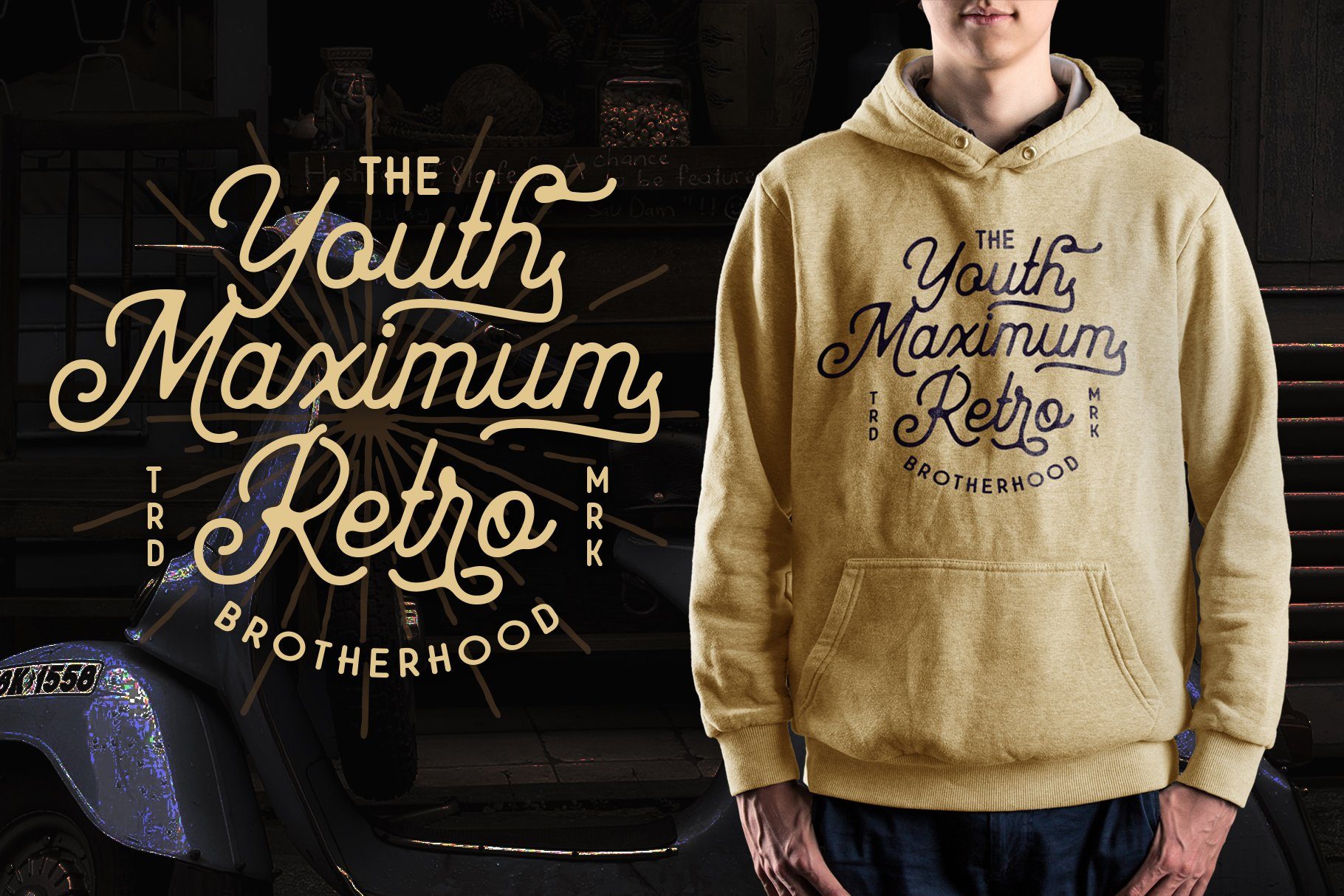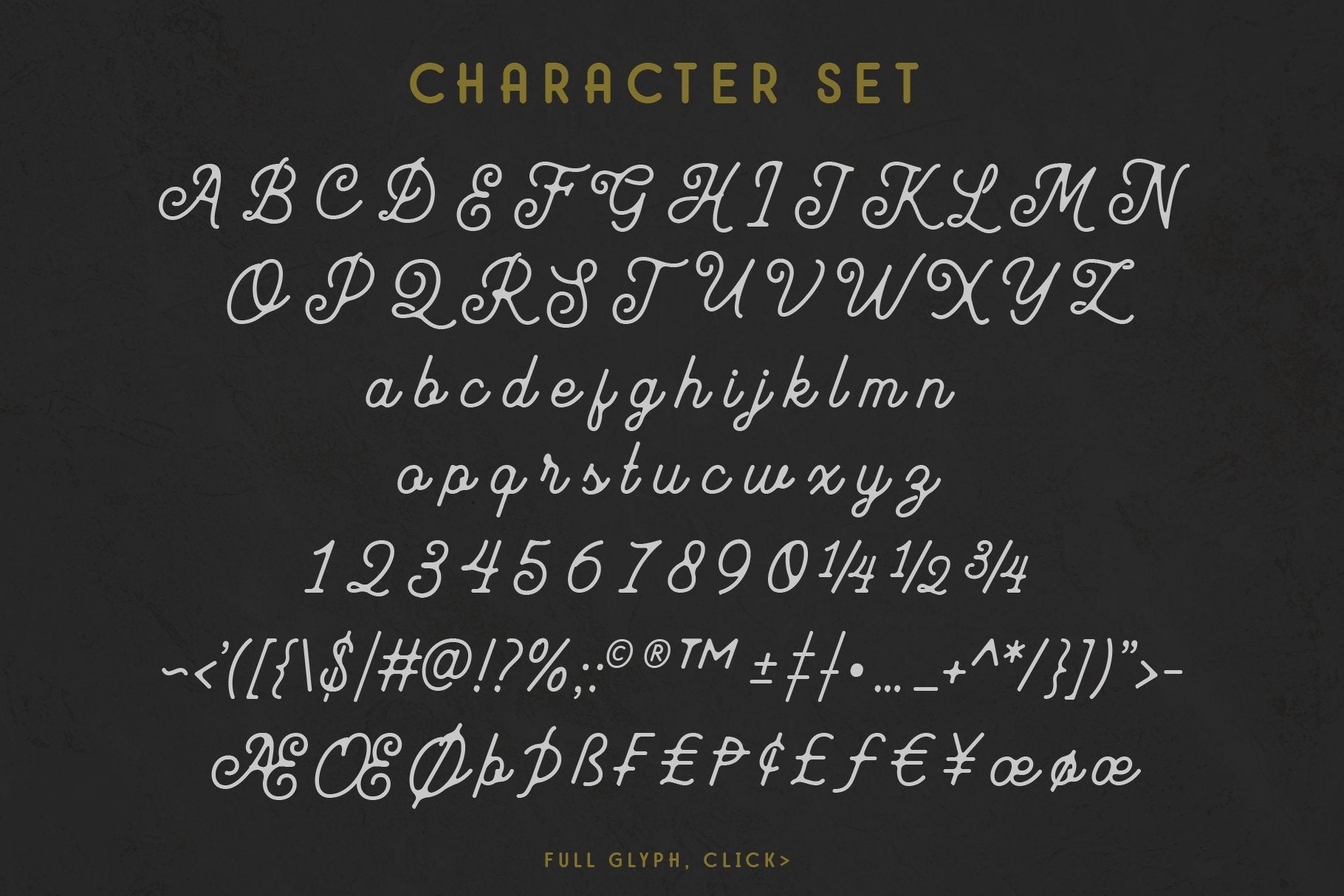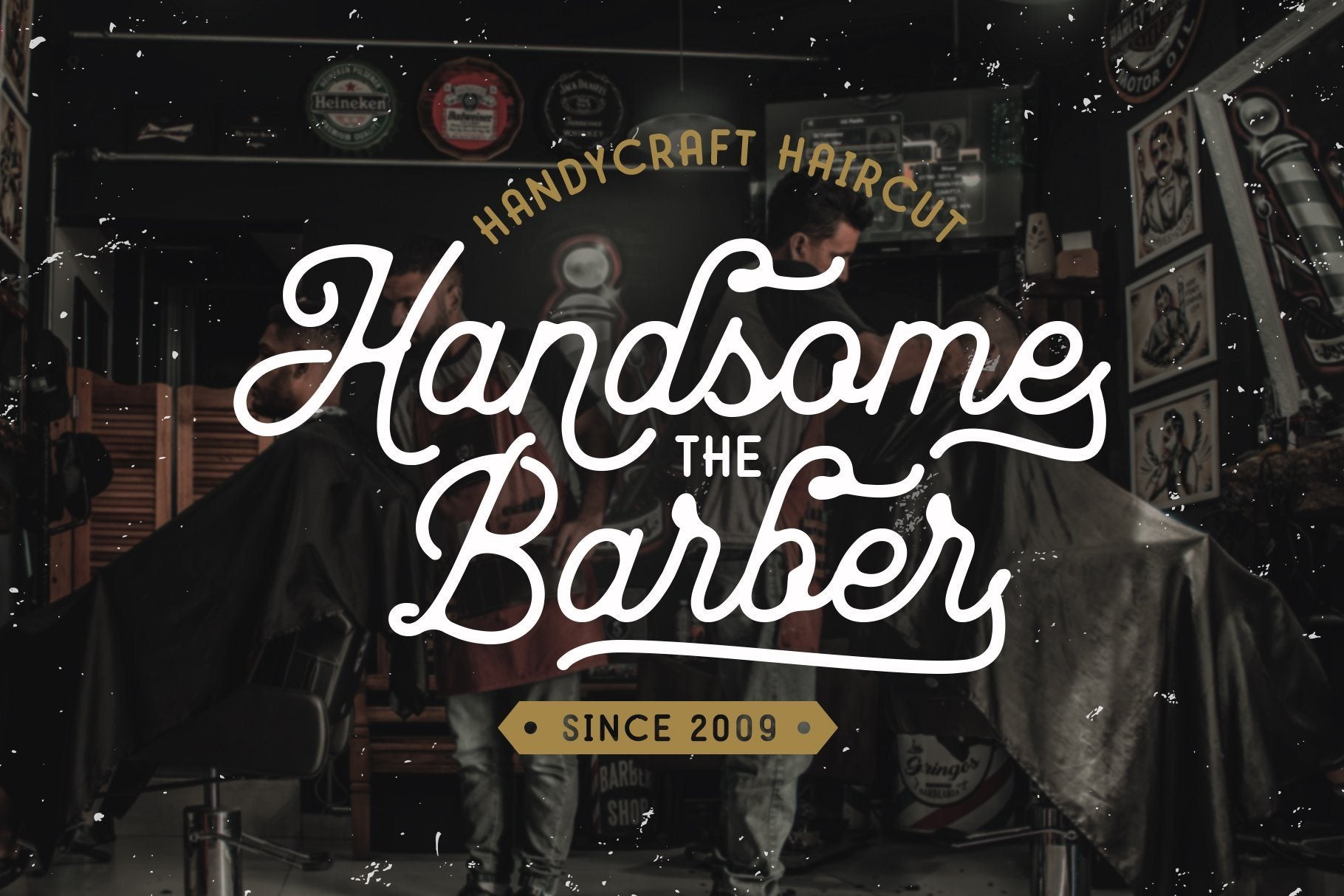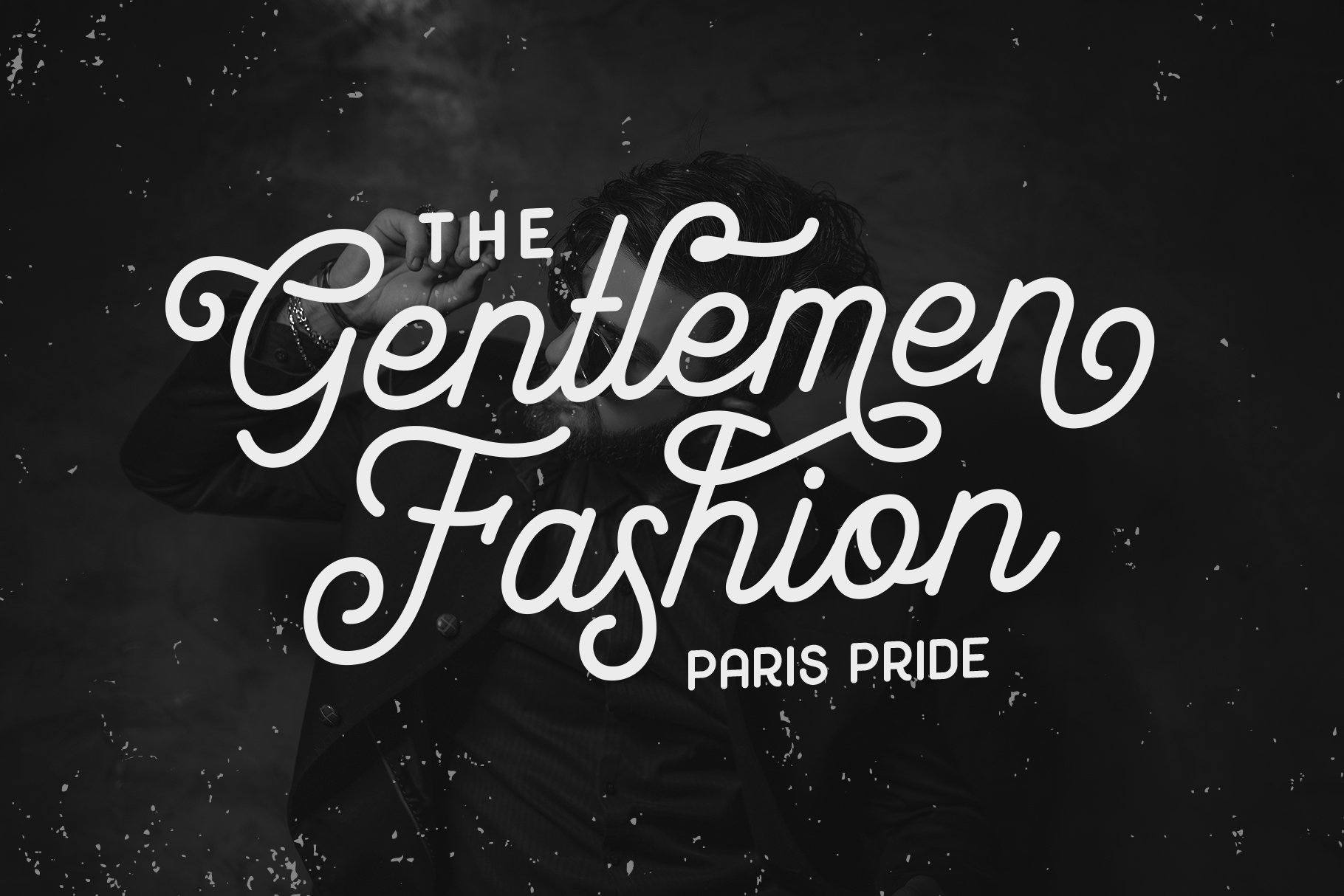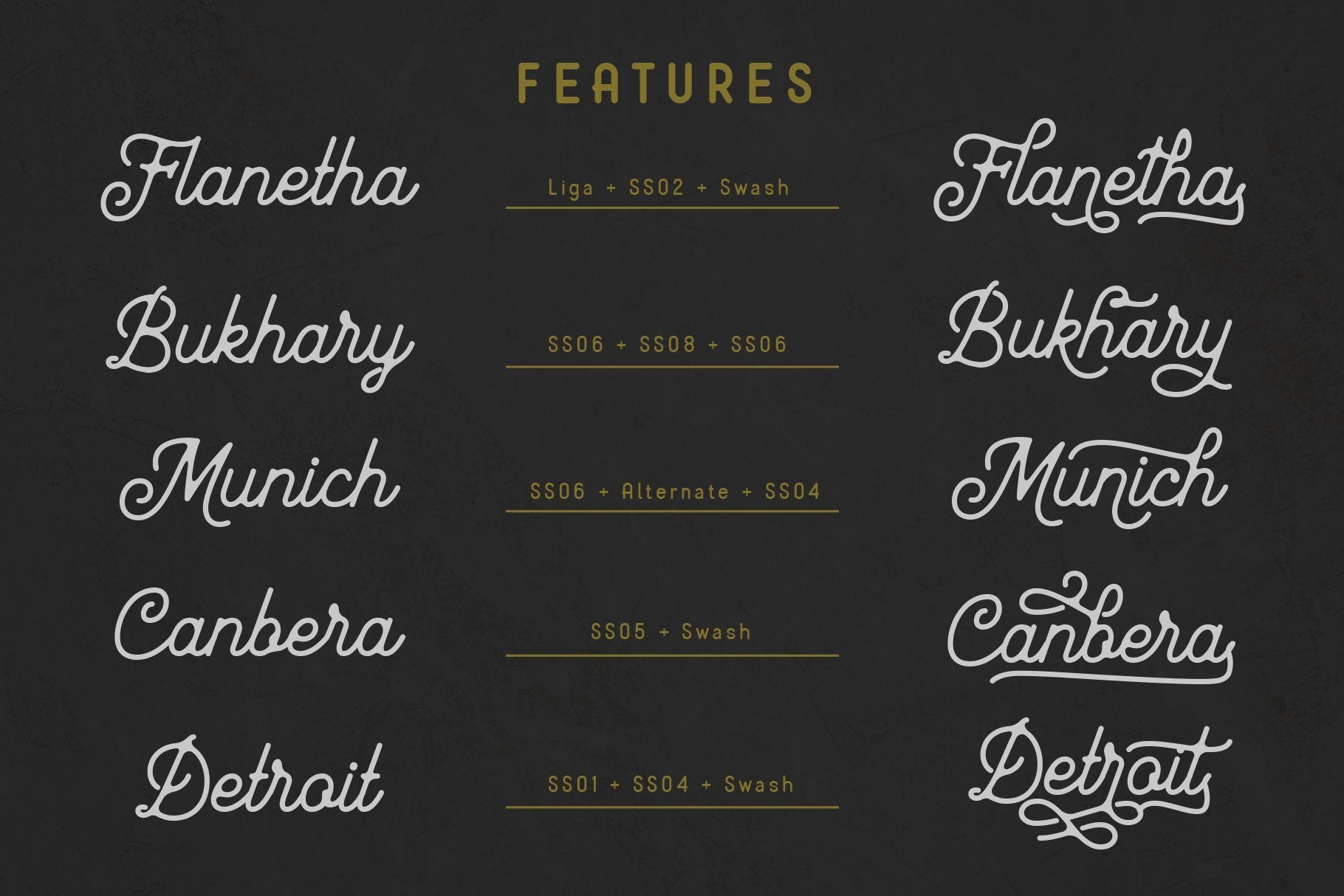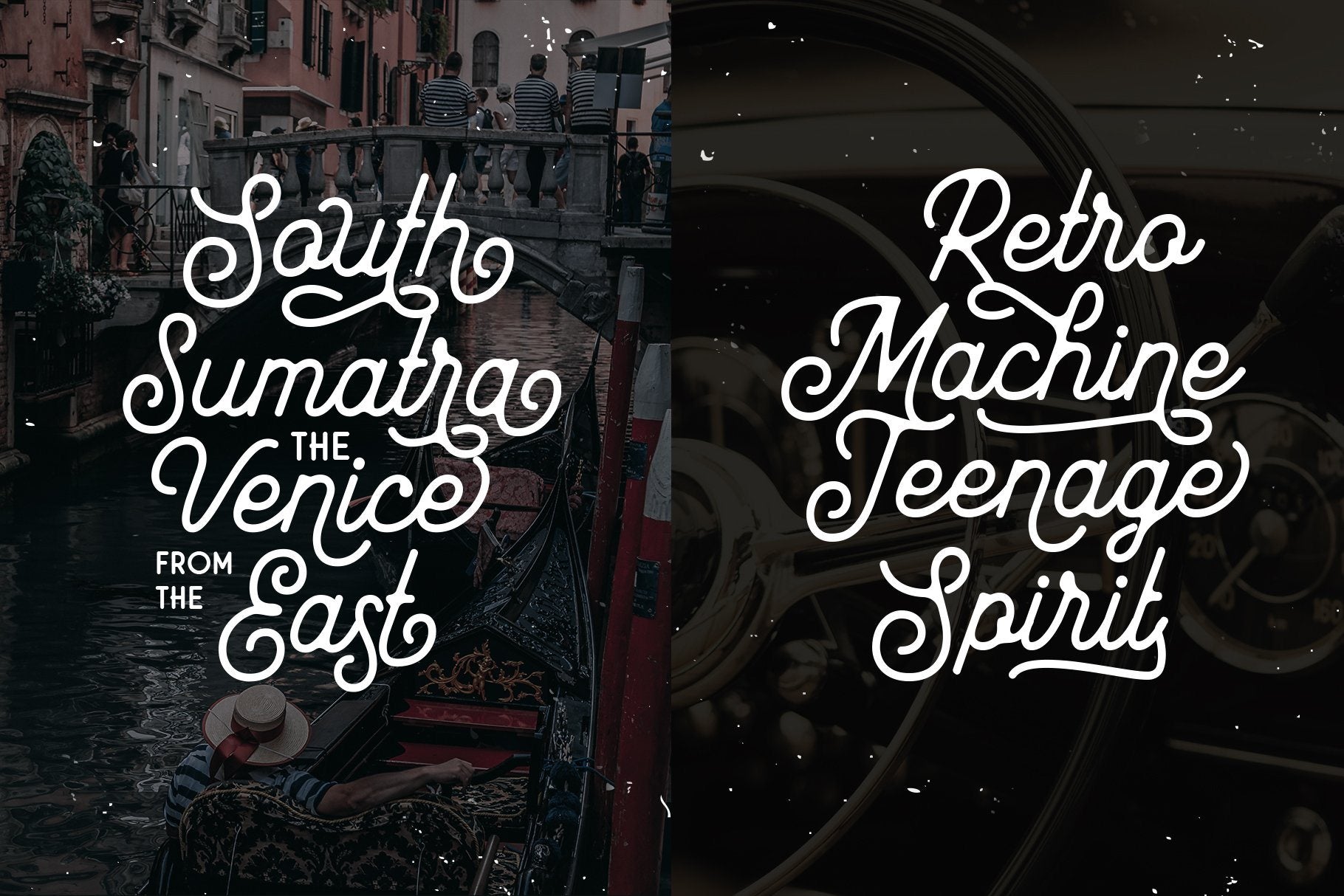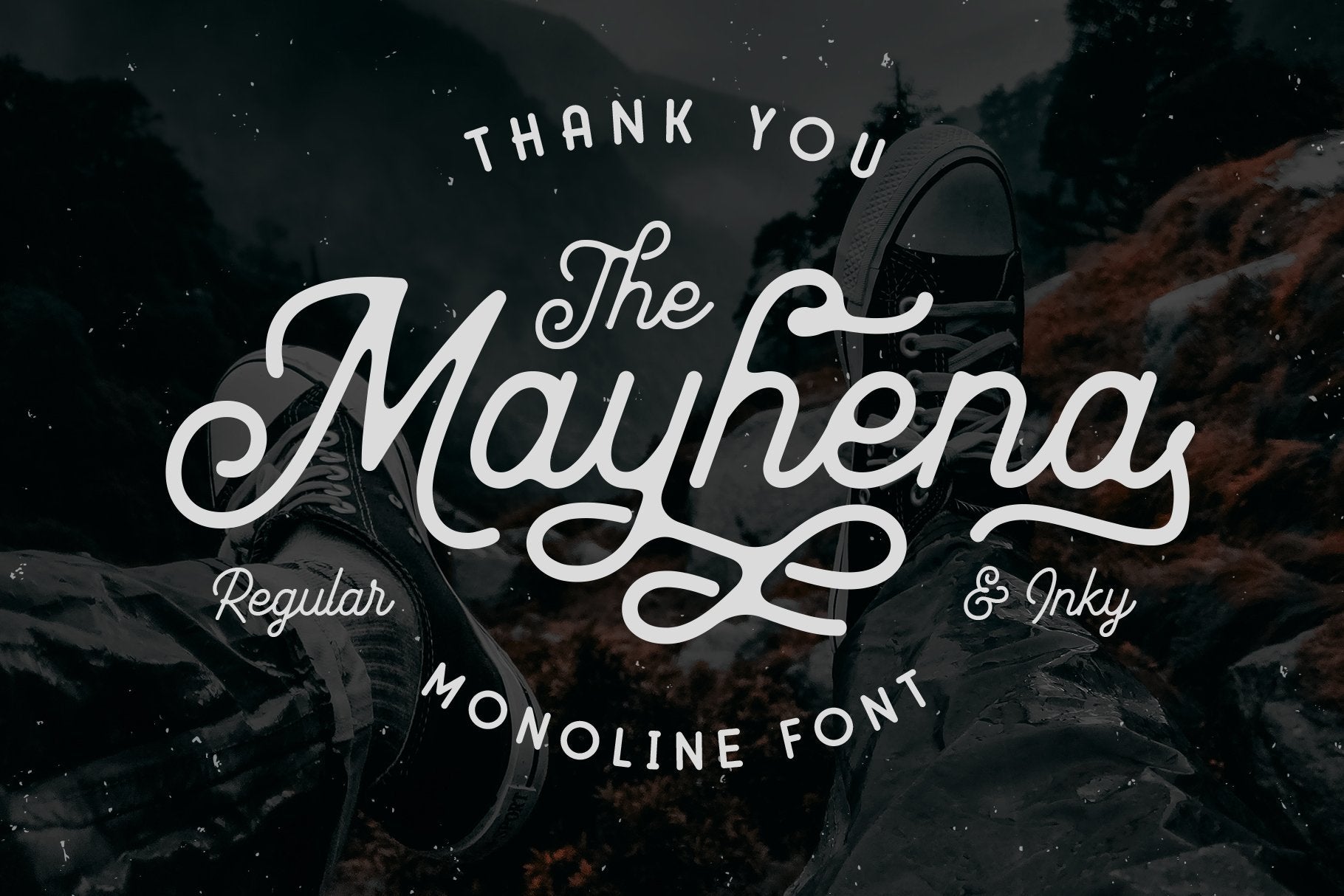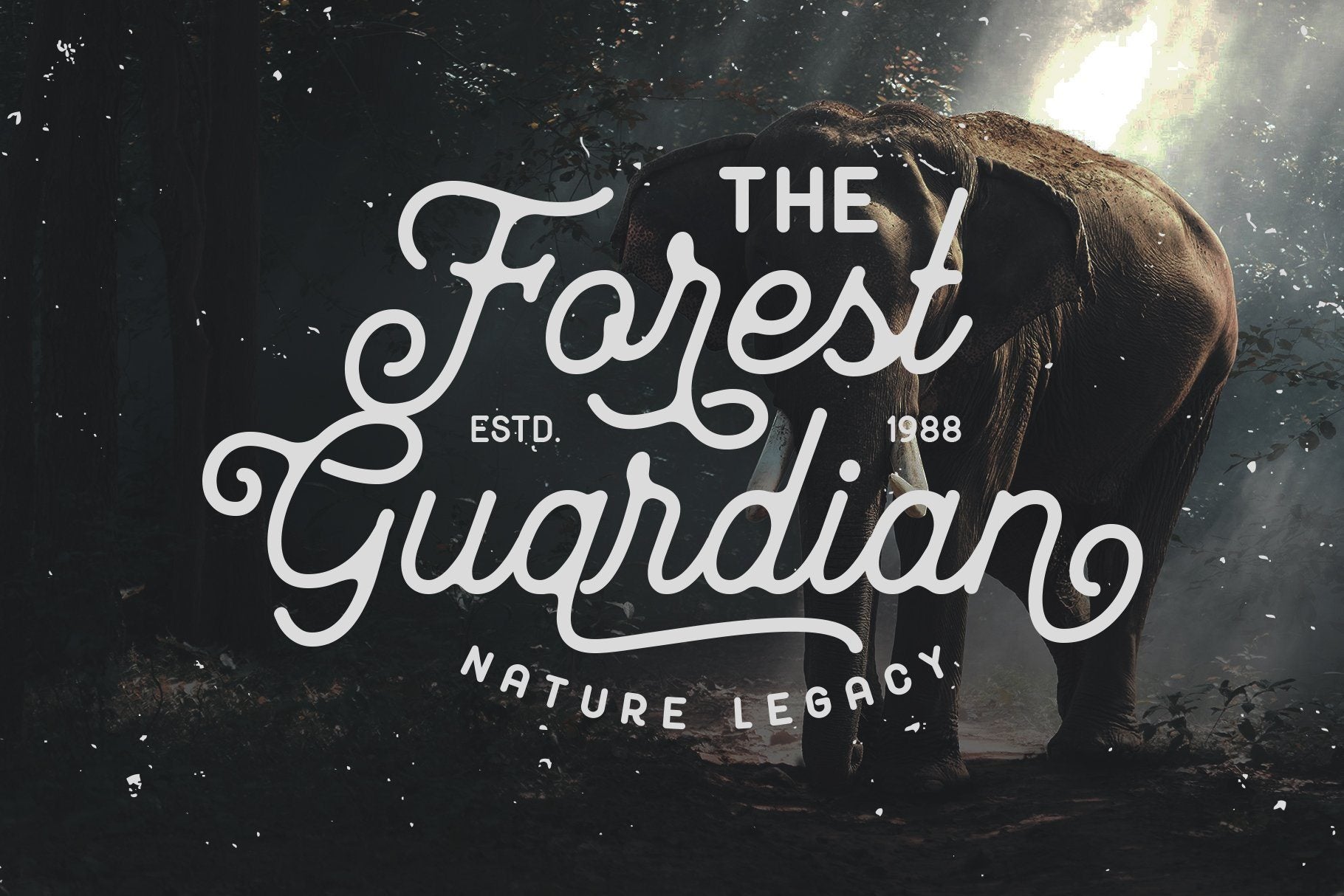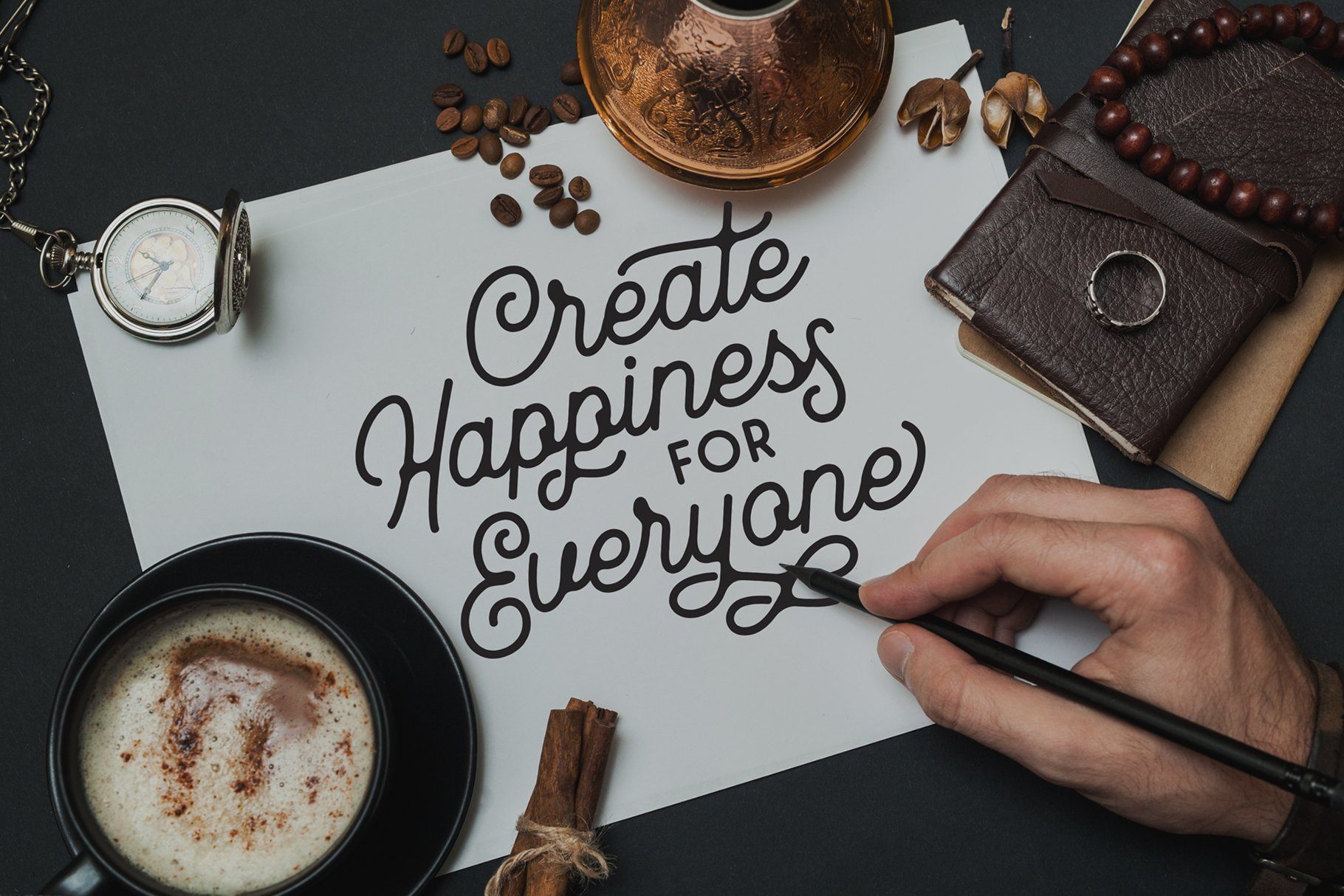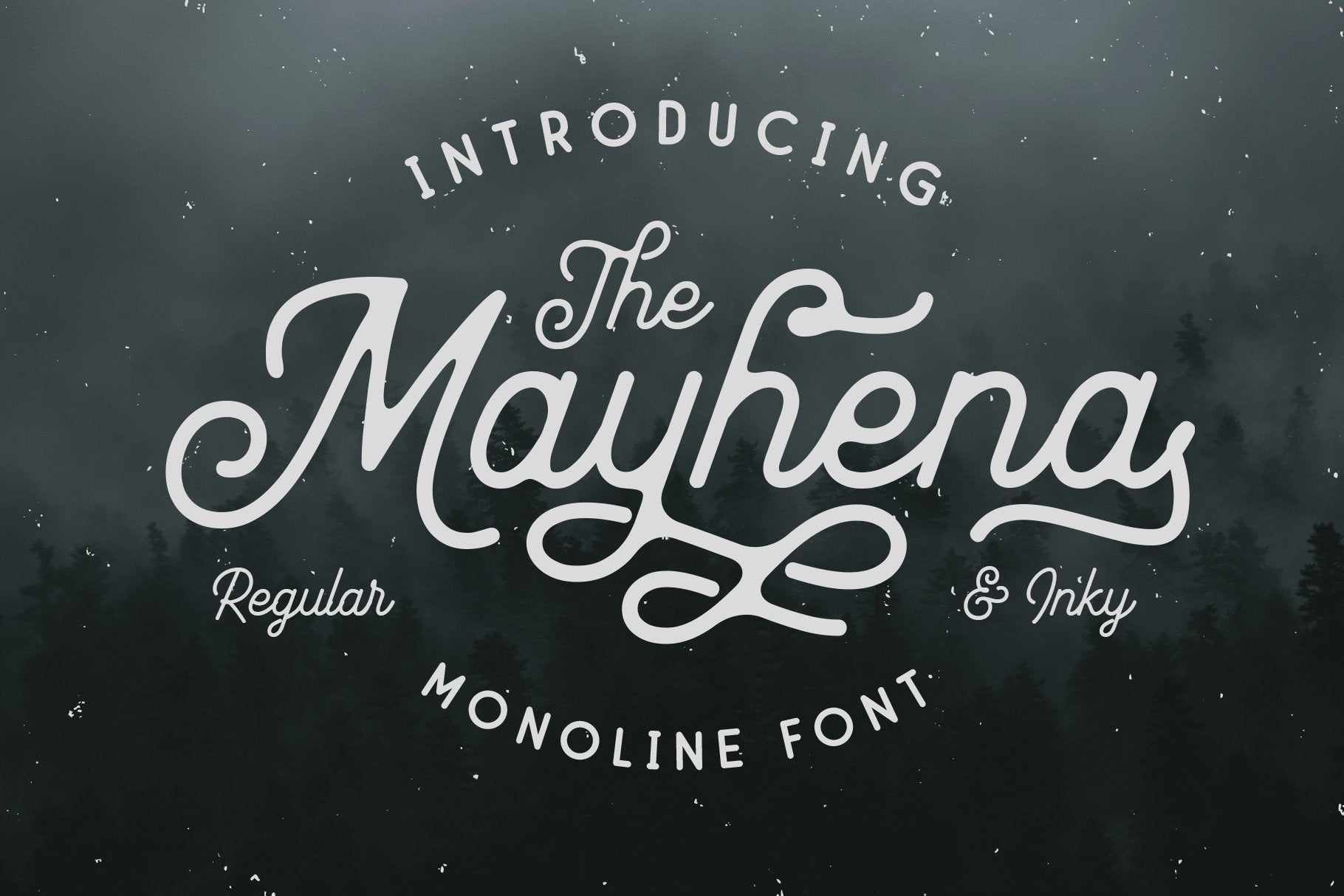
Mayhena Monoline Font
About Mayhena Monoline Font
Introducing Mayhena , Vintage Monoline Font. The connected monoline font with vintage looks. Comes in Regular and Inky style that you can use to create beautiful vintage typography on any project like t-shirt, merchandise, logo, insignia, label, poster, magazine, packaging, quotation and more. Mayhena font keeps the legibility to use on body text. Mayhena font complete with alternates and stylistic set 01 to 08 that you can make many variations of typography like long swashes, short swashes, ornamental tails, end strokes and more. Support 27 languages with 500+ glyphs! TTF & OTF format in Zip file featured : Uppercase Lowercase Symbols Numbers Accents Ligatures Alternates SS01 – SS08 Feel free to drop me a message if you have any inquiries. Thank you for watching it. Hope you like it and enjoy! Regards, Ramz.